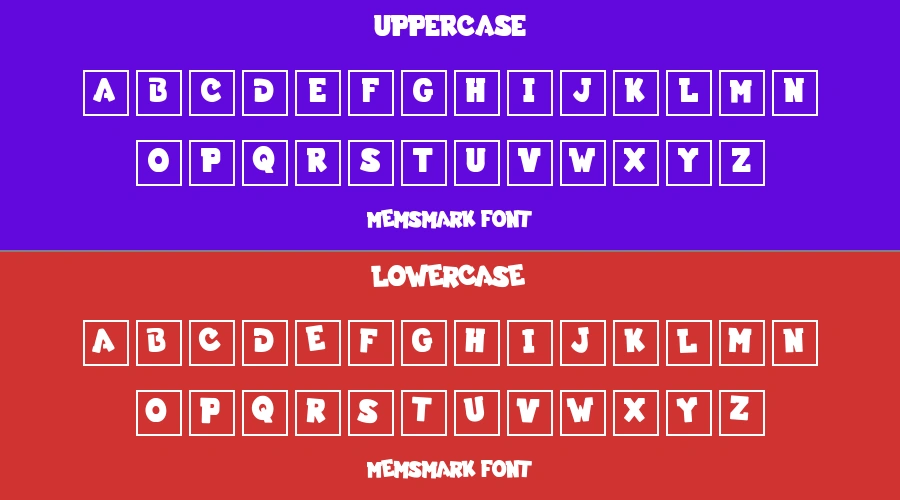
About Memsmark Font
When typographic excellence matters most, Memsmark Font delivers through its thoughtful blend of wedge serifs and versatility. Specially crafted for annual reports, it offers the originality and cultural relevance required for sophisticated design work. Every detail serves a purpose.
The character set showcases thoughtful details like assertive angles alongside functional discretionary ligatures. This proves especially valuable in product names, where consistency directly influences results. Particular attention was paid to spine curvature and research value during development.